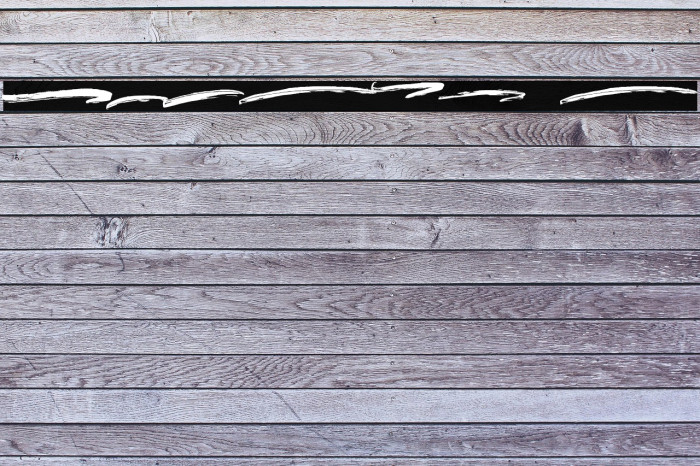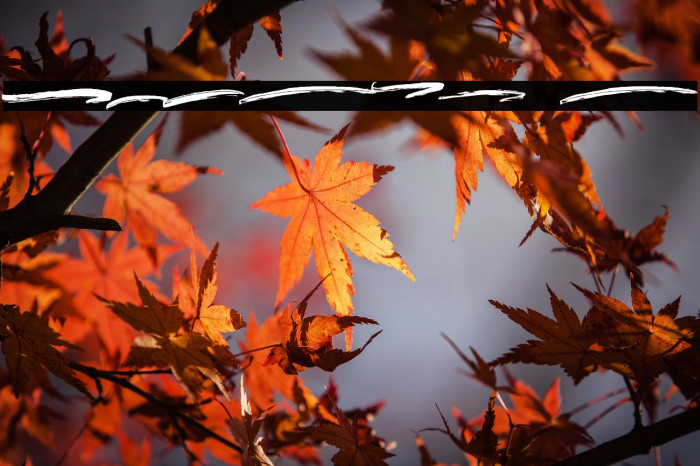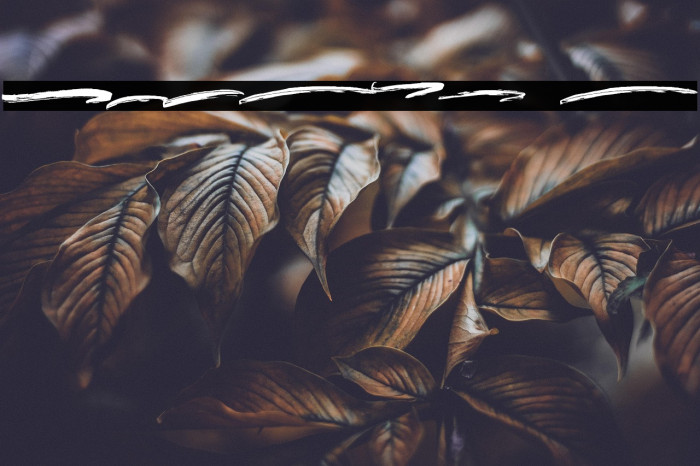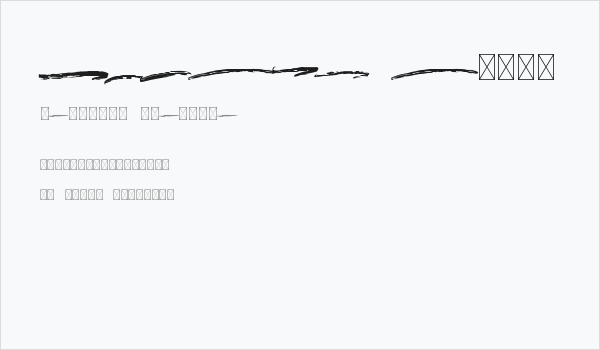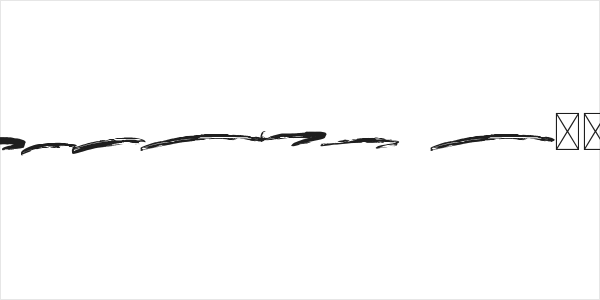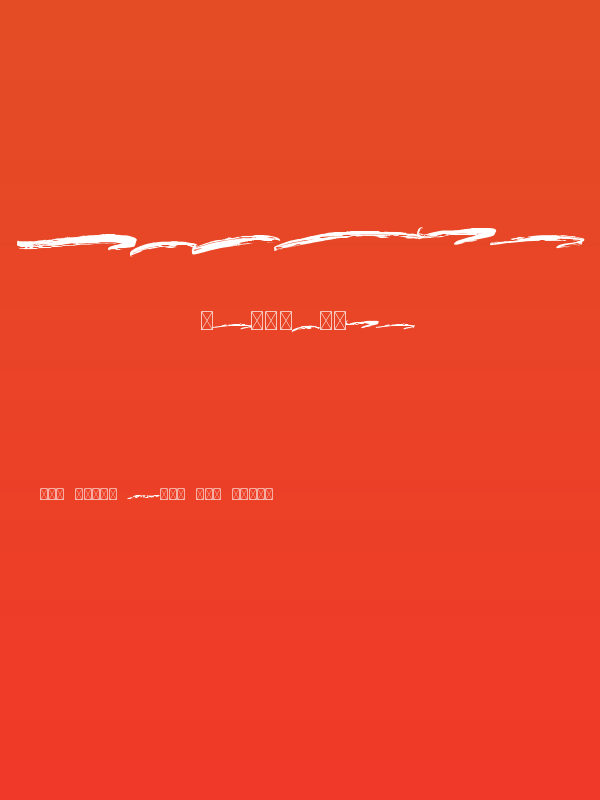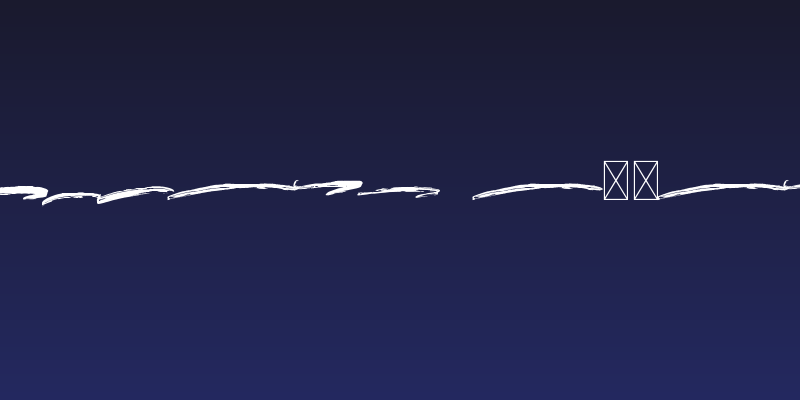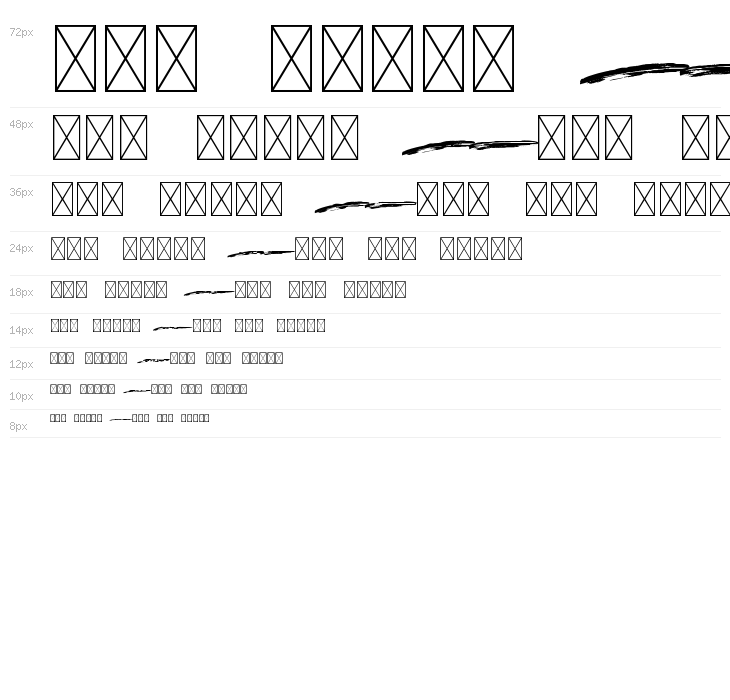
BRUSHY Swash Font
BRUSHY Swash Description
This font features a dynamic and expressive style, reminiscent of bold brush strokes. Each character is crafted with a sense of movement and fluidity, creating a lively and artistic appearance. The strokes vary in thickness, adding a natural and spontaneous feel. The overall design is both modern and artistic, making it ideal for creative projects that require a touch of flair and personality. The characters are well-defined yet maintain an organic, hand-drawn quality that is both engaging and visually striking.
Overall StyleModern, Artistic
Proposed ProjectsIdeal for artistic posters, creative branding, expressive invitations, and dynamic social media graphics.